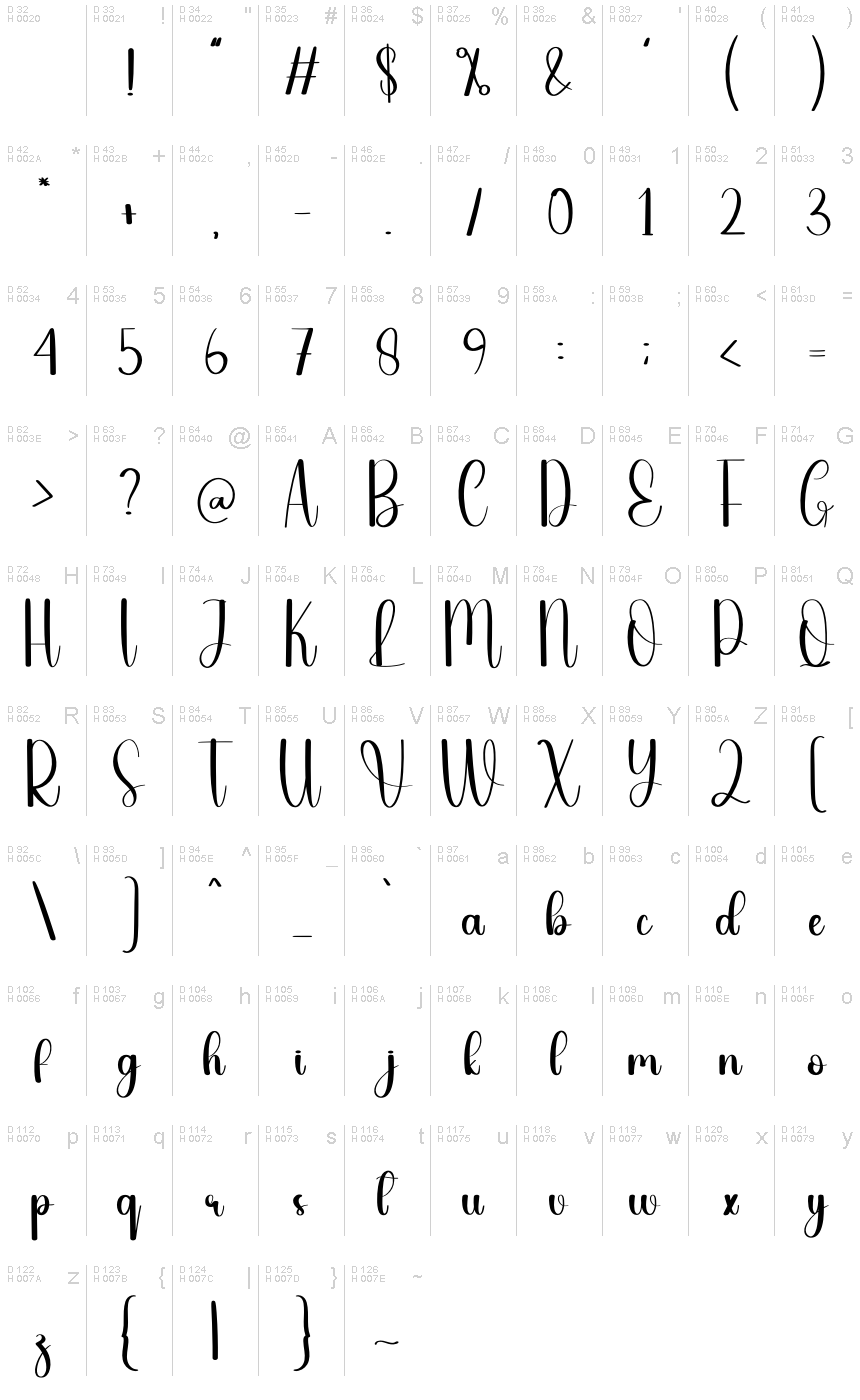
Kleo Blue
Kleo Blue is a captivating handwritten font that exudes a contemporary elegance. The condensed width adds a touch of refinement, while the smooth, flowing strokes evoke a sense of effortless sophistication. This versatile typeface seamlessly blends modern aesthetics with the warm, personal touch of handcrafted calligraphy.
Kleo Blue's distinct character and versatility make it a compelling choice for a wide range of design applications, from high-end branding and editorial layouts to captivating social media content and dynamic packaging designs.
Its unique personality and fluid, expressive forms ensure that this font leaves a lasting impression.
This is a sweet and friendly handwritten display font. Cute and fun, this font is ideal for writing wedding invitations, cards, or any other design that might need a playful touch!